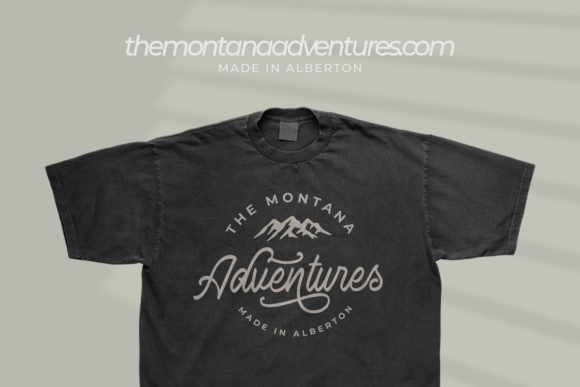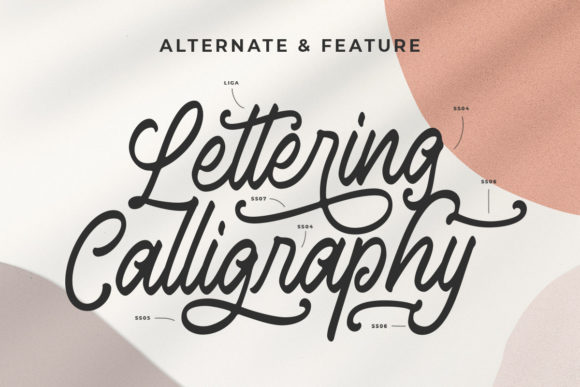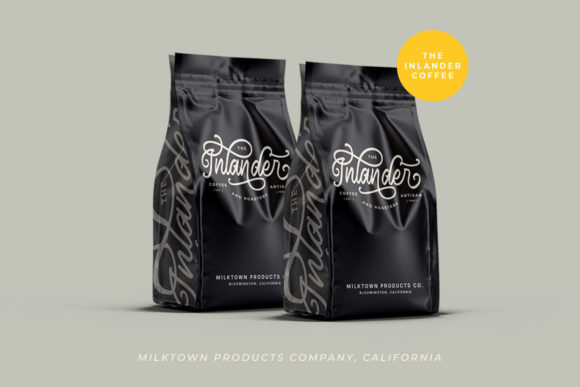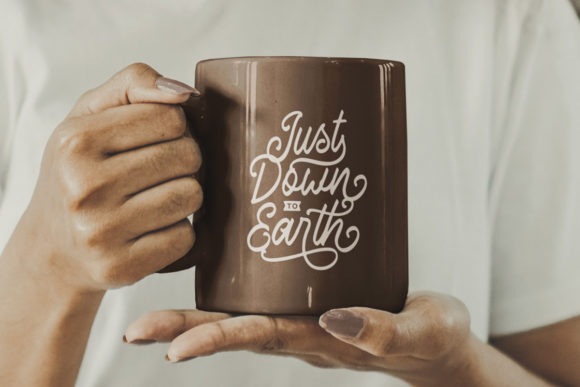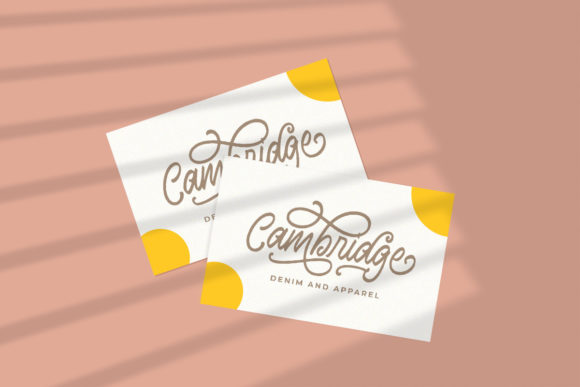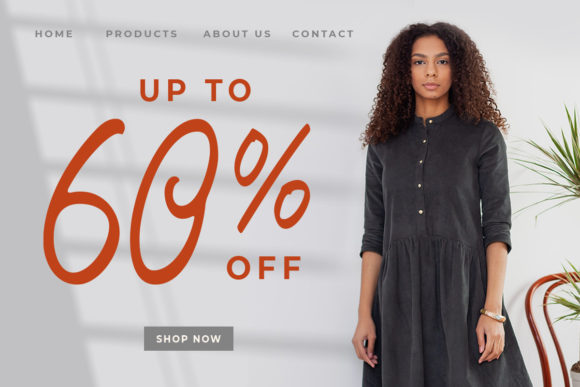
Introduction to Mayhome Script Font
Remember the thrill of creating a beautiful invitation for a close friend’s wedding, or the satisfaction of designing a logo for a client’s new business? For designers, there’s nothing quite like the rush of bringing a creative project to life with the perfect font. And that’s exactly what Mayhome Script Font is designed to do – add a touch of elegance and sophistication to any design.
With its vintage and classy script style, Mayhome Script Font is the perfect choice for designers who want to create high-quality designs that stand out from the crowd. And the best part? This font is PUA encoded, making it incredibly easy to access all the glyphs and swashes that make it so special. Whether you’re working on a free download project or a paid design, Mayhome Script Font is a valuable resource that’s sure to elevate your designs.
Key Features of Mayhome Script Font
- Features a transparent background, making it easy to overlay on images or other design elements.
- Includes a range of characters and symbols, including uppercase and lowercase letters, numbers, and punctuation marks.
- Designed with a beautiful, cursive script style that is perfect for adding a personal touch to your designs.
- Suitable for use in a variety of design contexts, including logos, typography, and other creative projects.
Honest Review: Mayhome Script Font
I recently stumbled upon the Mayhome Script Font, and I’m excited to share my thoughts on this lovely design resource.
- ✨ Beautiful, elegant script style that’s perfect for creative projects that require a touch of sophistication
- ✨ High-quality font files that are smooth and easy to work with, even at larger font sizes
- ✨ Transparent background, making it easy to place over any image or background
- ⚠️ Limited character set, which may not be ideal for longer text blocks or professional documents
- ⚠️ May not be as versatile as some other script fonts, but it’s still a great choice for specific design projects
Overall, I’m really impressed with the Mayhome Script Font. It’s a beautiful, high-quality design resource that’s perfect for creative projects. With its elegant script style and transparent background, it’s a great choice for designers looking to add a touch of sophistication to their work. While it may have some limitations, it’s still a valuable addition to any designer’s toolkit.
Tips for Getting the Most Out of Mayhome Script Font
Use the Mayhome Script Font in conjunction with other design elements to create a visually appealing and cohesive design. Experiment with different font sizes and colors to add depth and emphasis to your text.
The Mayhome Script Font is ideal for creating eye-catching titles, headings, and quotes in your creative project. It’s also suitable for designing invitations, posters, and social media graphics where a unique and elegant font is required.